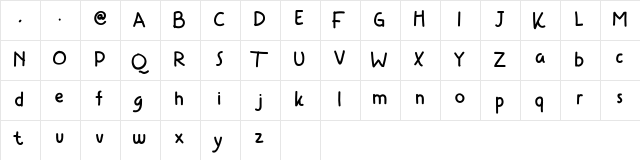
She Is Gone Regular
Design Context for She Is Gone Typeface
She Is Gone takes a measured approach to typography — its balanced proportions and neutral character make it a reliable workhorse for both digital and print work.